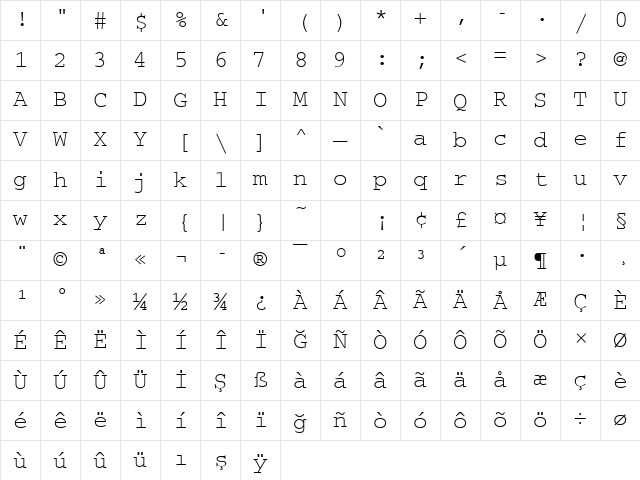
CourierMTU Regular
Design Context for CourierMTU
CourierMTU uses fixed-width spacing throughout, giving it the structured, systematic character associated with coding environments and technical documentation.
Pro Tip: Use CourierMTU with slightly increased line-height for extended reading - fixed-width spacing can feel dense in longer passages without extra breathing room.